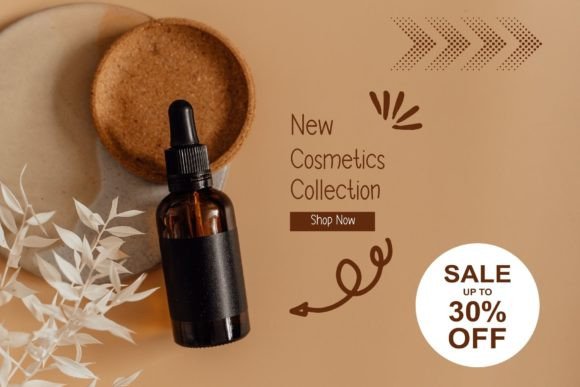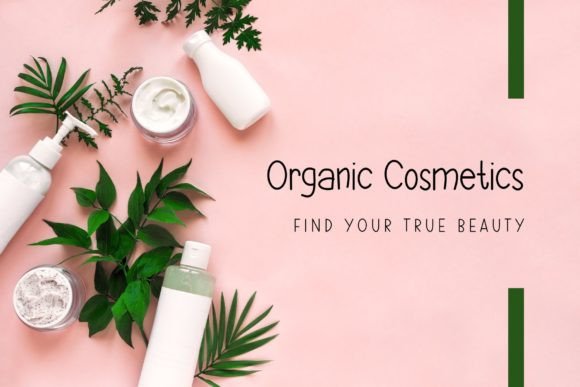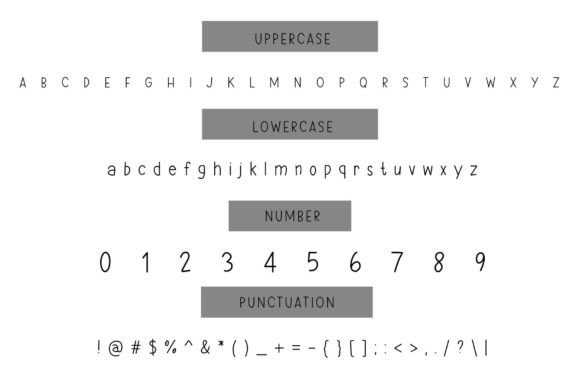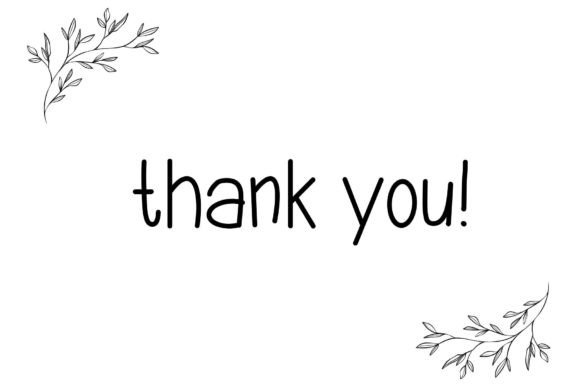
The Cute and Playful Brielle Font: A Designer’s New Best Friend
I’ll never forget the time I was working on a project for a client who wanted a playful and authentic vibe. I had spent hours browsing through font libraries, but nothing seemed quite right. That was until I stumbled upon the Brielle font. It was love at first sight! ✨ The cute handwritten style perfectly captured the essence of what my client was looking for, and I knew I had found the perfect fit.
An Honest Review of Brielle Font
- ✨ Playful and authentic feel: Brielle font embodies a sense of fun and genuineness that’s hard to find in other fonts.
- ✅ Versatility: It’s perfect for a wide range of projects, from blog posts and logos to invitations and greeting cards.
- 💕 Emotional connection: The handwritten style creates an instant emotional connection with the reader, making it ideal for projects that require a personal touch.
While Brielle font is amazing, it’s not perfect. Here are a few things to keep in mind:
- ⚠️ Legibility at small sizes: Like many handwritten fonts, Brielle can be a bit tricky to read at very small sizes. Make sure to test it out before committing to a specific size.
- 🤔 Overuse of swashes: While the swashes and stylistic alternates are a great feature, overusing them can make the text look cluttered. Use them sparingly to add visual interest.
The Designer Inspiration Behind Brielle Font
The Brielle font was designed with the intention of creating a playful and authentic handwritten font that captures the essence of creativity and fun. The designer wanted to create a font that would allow users to add a personal touch to their projects, making them more relatable and engaging.
Q: Is Brielle font suitable for body text?
A: While Brielle font is beautiful, it’s best suited for headlines, titles, and short paragraphs. For body text, you may want to choose a more legible font.